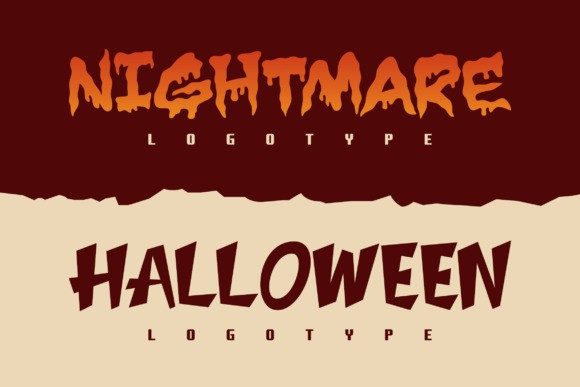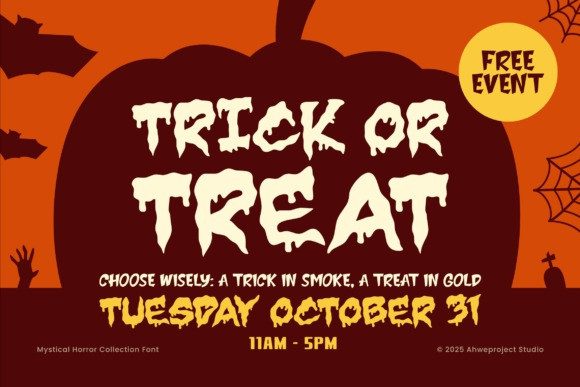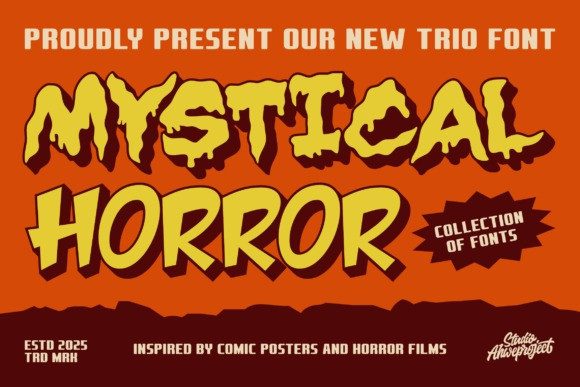
Mystical Horror Font
Mystical Horror Font Collection, a 3-style display set inspired by classic comic posters and cult horror films.The mix of dripping slime, bold comic, and shadowed display gives you instant drama, strong readability, and scroll-stopping impact.
Mystical Horror Collection Is Perfect for:
– Halloween posters & party flyers
– Movie/podcast covers & thumbnails
– Game titles, badges, stickers & merch
– Seasonal banners, social media promos, packaging
Why it works
– Three contrasting styles for title, subhead, and accent
– Thick strokes, consistent rhythm, great for big sizes
– Pairs beautifully with outlines, shadows, and grunge textures
– Clean spacing and smooth curves for sharp, professional results